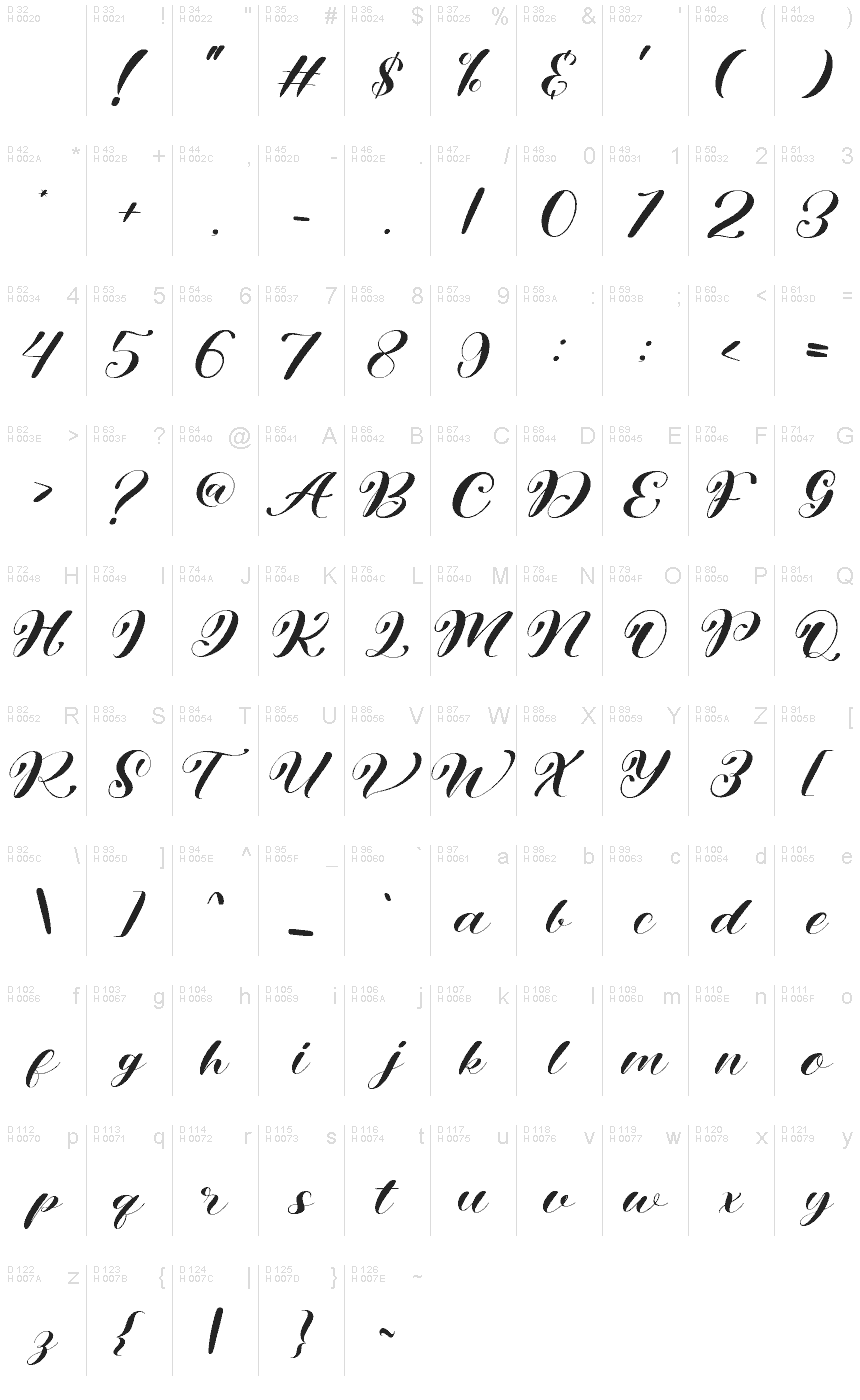
Wonder Varelia
Wonder Varelia font by Enxyclo Studio is a free calligraphy font that captures the timeless elegance of traditional script influences. With graceful flowing lines, it combines classical and decorative elements to achieve a sophisticated, formal appearance. Ideal for headers and titles, every swirl and curl can add a unique touch to your designs.
Use Wonder Varelia in elegant branding projects, wedding theme ideas, modern invitations card designs, mood boards’ titles or headlines. This calligraphy font also fits packaging design projects such as perfumes and beauty products. Fashion magazines will get an advantage from such creative typography as each page displayed would be more attractive than before!